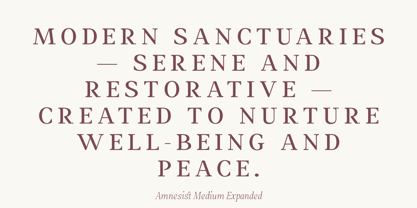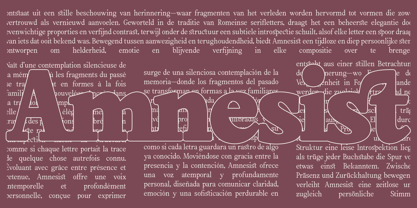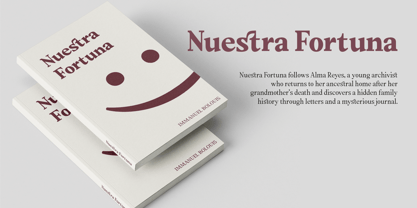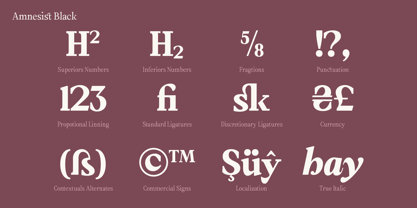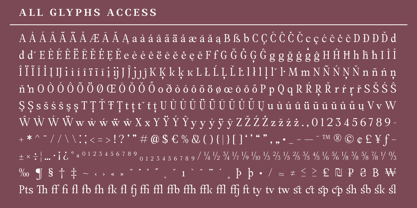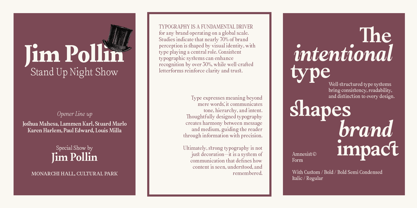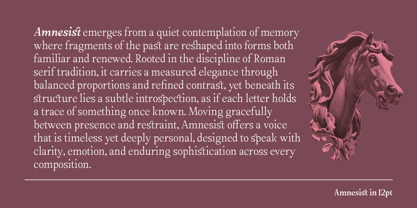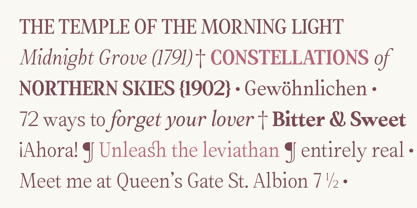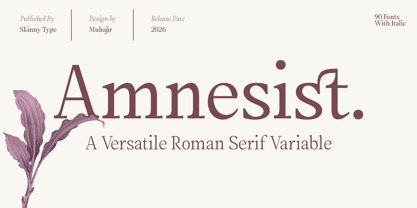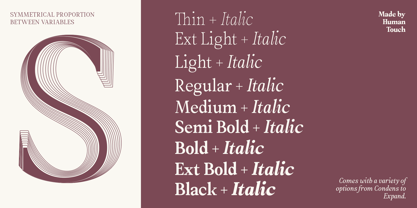
Amnesist
par Skinny Type
La famille de polices Amnesist a été conçue par Muhajir et publiée par Skinny Type. Amnesist contient 92 styles et options de package familial. En savoir plus sur cette famille
Amnesist emerges from a quiet contemplation of memory—where fragments of the past are reshaped into forms both familiar and renewed. Rooted in the discipline of Roman serif tradition, it carries a measured elegance through balanced proportions and refined contrast, yet beneath its structure lies a subtle introspection, as if each letter holds a trace of something once known. Moving gracefully between presence and restraint, Amnesist offers a voice that is timeless yet deeply personal, designed to speak with clarity, emotion, and enduring sophistication across every composition. Amnesist – Features Family & Styles Amnesist is designed as a comprehensive type system, featuring 90 styles from Thin to Black, each accompanied by true italics. This extensive range ensures flexibility across both display and text settings. Core Characteristics Classic Roman serif construction with contemporary refinement Balanced proportions and controlled contrast Elegant, readable forms for both headlines and body text Carefully crafted italics with natural flow and rhythm